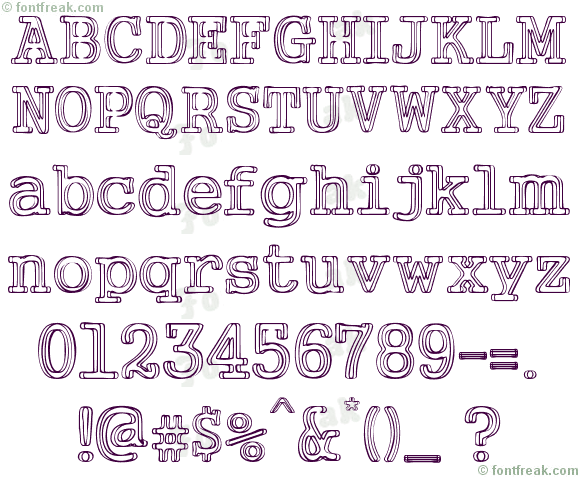
Neo-Writer
The Neo-Writer font, crafted by the talented woodcutter Manero, is a unique typeface that seamlessly blends retro charm with contemporary aesthetics. This decorative font features a playful yet structured design, characterized by its bold stroke weight and thoughtful contrast. The letterforms exhibit a distinctive, slightly rounded style, providing a friendly and inviting appearance that is both modern and nostalgic. Its generous spacing enhances readability, making it an excellent choice for various creative projects.
Ideal for a multitude of applications, the Neo-Writer font shines in areas such as wedding invitations, where its whimsical flair can add a touch of elegance. It is equally suitable for movie posters, lending a creative edge that captures attention and communicates a sense of narrative. Additionally, restaurant menus can benefit from its inviting character, helping to create a warm atmosphere that draws customers in. Content creators and social media marketers will also find it perfect for eye-catching graphics and promotional materials, allowing their messages to stand out in a crowded digital landscape.
What truly sets the Neo-Writer font apart is its ability to evoke emotion while maintaining functionality. Its distinctive look not only makes it memorable but also versatile enough to adapt to various styles and themes. Whether you're designing for print or digital platforms, this font adds an imaginative touch that can transform ordinary text into a captivating visual experience.